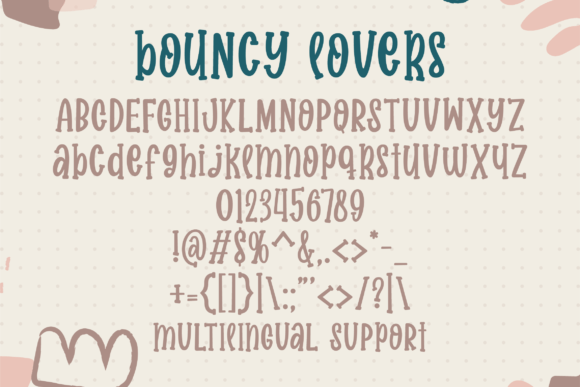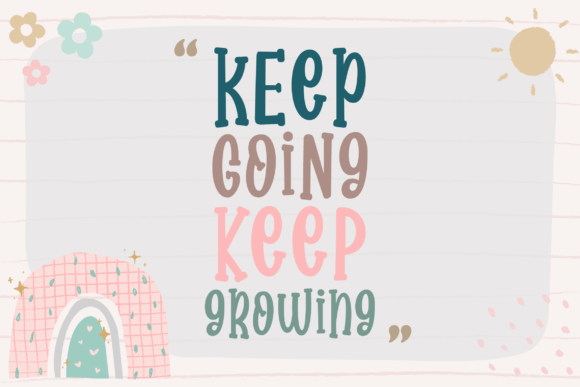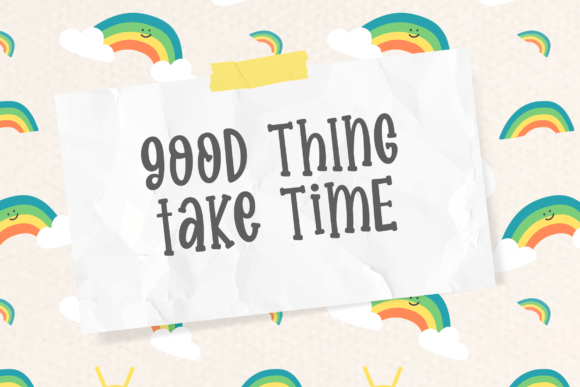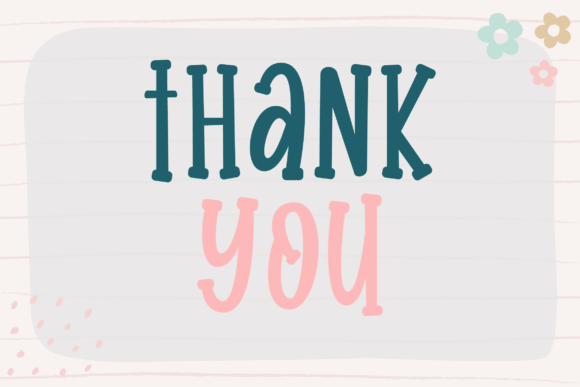
The Perfect Match for Your Creative Projects: Bouncy Lovers Font
Have you ever sat in front of your computer, staring at a blank canvas, and suddenly, an idea pops into your head? The excitement is palpable, and your creative juices start flowing. That’s exactly what happened to us when we discovered the delightful Bouncy Lovers Font. This charming display font is a breath of fresh air, designed to bring a smile to your face and add a touch of whimsy to your designs.
Bouncy Lovers Font is perfect for any creative project, whether you’re crafting, designing digitally, creating presentations, or making greeting cards. Its friendly and fun vibe makes it an instant favorite among designers. With its versatility and playfulness, it’s no wonder why this font has become a go-to choice for many creatives. If you’re looking to add a little extra oomph to your designs, Bouncy Lovers Font is definitely worth checking out.
Bouncy Lovers Font Key Features
- Unique Characteristics: Hand-drawn, bouncy and playful design with a touch of whimsy, perfect for titles, headings and creative projects
Bouncy Lovers Font Review
I recently had the chance to work with the “Bouncy Lovers Font” and here’s my honest review.
- Unique and playful design: The font is perfect for creating a fun and lively atmosphere in any design project.
- Customizable: The font offers various customization options, making it easy to adjust the style to fit your needs.
- High-quality glyphs: The font includes a wide range of glyphs, including punctuation and special characters.
- Limited legibility: At smaller font sizes, the font can become difficult to read due to its playful and bouncy design.
- No bold or italic styles: The font only comes in regular weight, which can limit its versatility in certain design projects.
- Not suitable for formal designs: The font’s playful design may not be suitable for formal or professional designs, such as business reports or academic papers.
The “Bouncy Lovers Font” is a great choice for designers who want to add a playful touch to their projects. While it has some limitations, its unique design and high-quality glyphs make it a valuable addition to any font collection. I would recommend this font for projects that require a fun and lively atmosphere, but may not be the best choice for formal or professional designs.
1. Social media graphics and posts.
2. Blog titles and headings.
3. Wedding invitations and decorations.
4. Party and event branding.
Alternatives to Bouncy Lovers Font
Great Vibes Font is a fun and lively script font that is perfect for creating a playful and energetic vibe. It is ideal for use in posters, advertisements, and other promotional materials where a bold and eye-catching font is needed.
Compared to Bouncy Lovers Font, Great Vibes Font has a more refined and elegant feel, making it suitable for a wider range of applications. While Bouncy Lovers Font is more suited for casual and informal use, Great Vibes Font can be used in more formal settings.
Pacifico Font is a beautiful and elegant script font that is perfect for creating a sophisticated and luxurious vibe. It is ideal for use in high-end branding, luxury packaging, and other materials where a sense of elegance and refinement is needed.
Compared to Bouncy Lovers Font, Pacifico Font has a more refined and polished feel, making it suitable for use in high-end applications. While Bouncy Lovers Font is more suited for casual and playful use, Pacifico Font is better suited for more formal and elegant use.